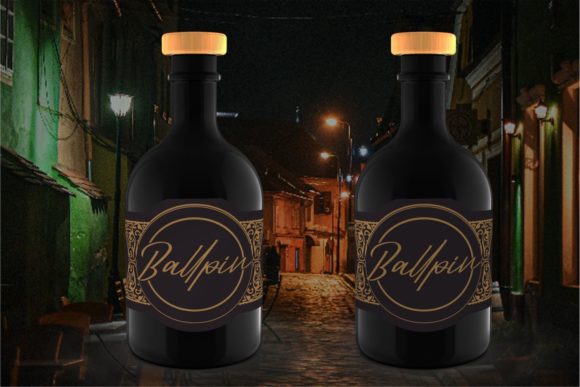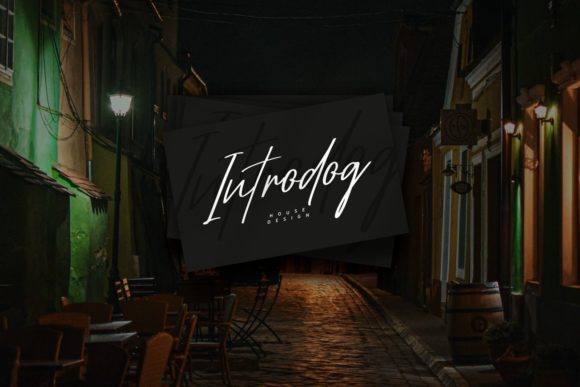
Roller Costter Font
db-ku.com - Script & Handwritten -- This font feels equally charming and elegant. It looks stunning on wedding invitations, thank you cards, quotes, greeting cards, logos, business cards and every other design which needs a handwritten touch.